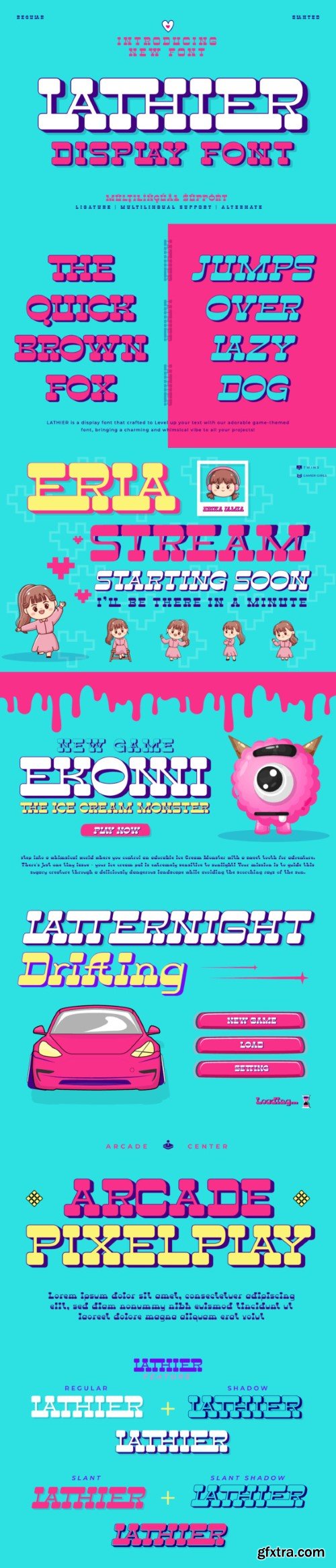
拉提尔字体
Welcome to a world of design full of character and creativity! Lathier is a unique display font, combining bold and fat elements into an unforgettable letterform. If you’re looking for a truly powerful look for your various visual design projects, Lathier is the perfect choice.